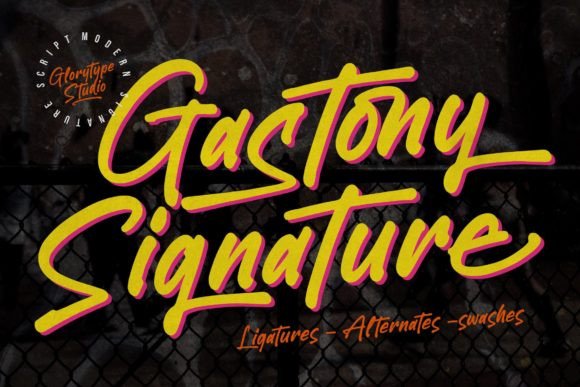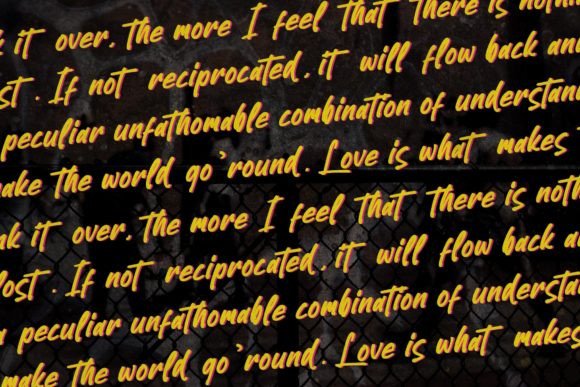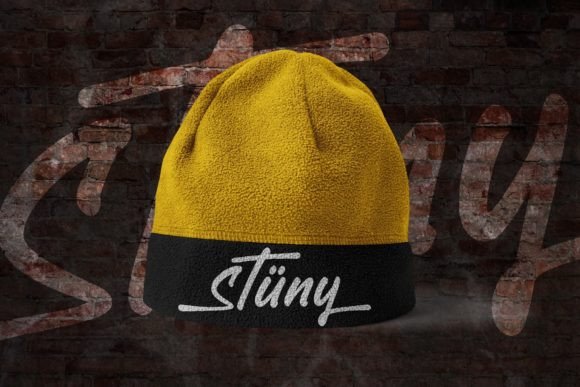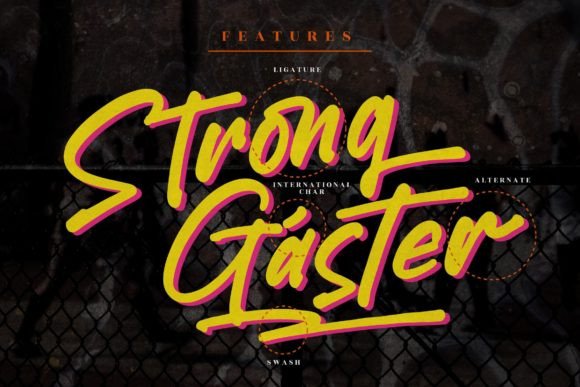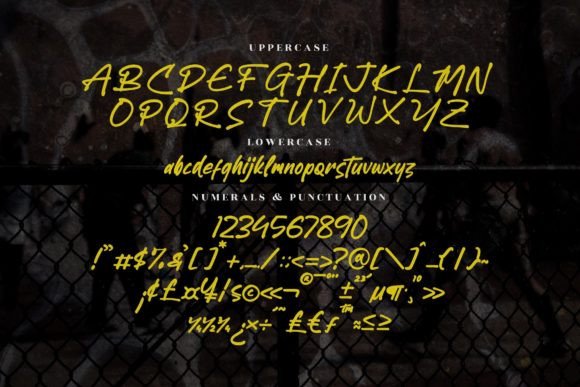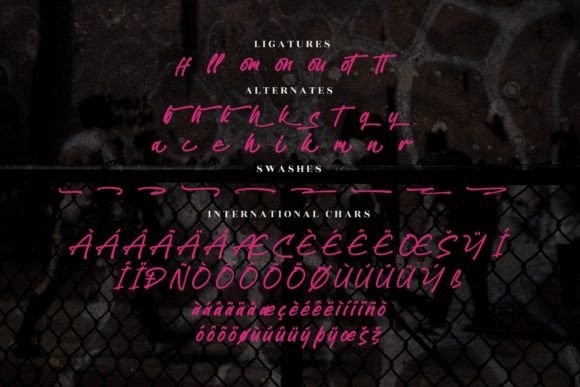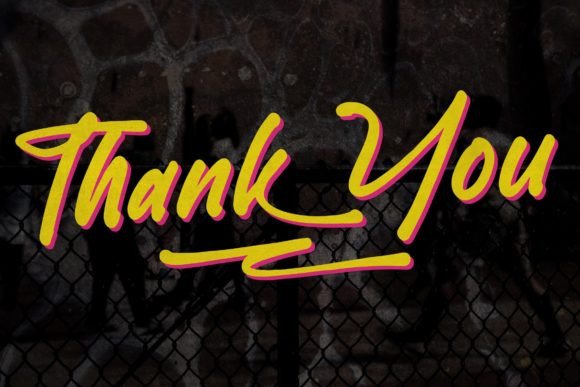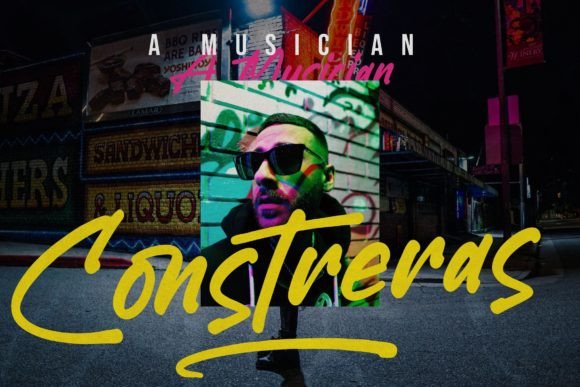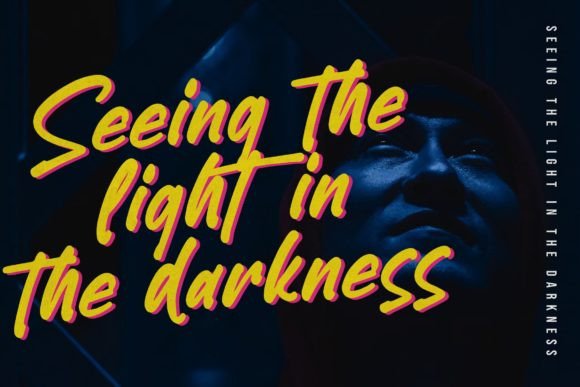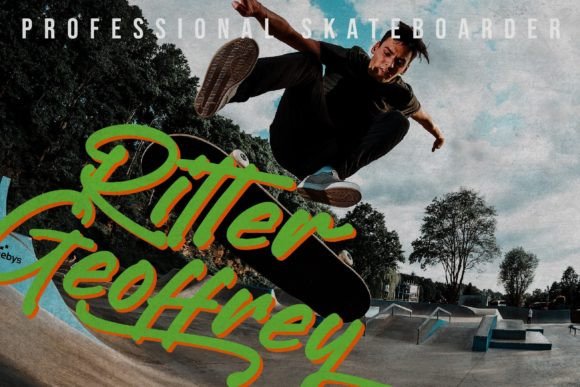
Gastony Signature Font
About Gastony Signature Font
“Gastony Signature: Where Elegance Meets Perfection in Script Typography
Introducing Gastony Signature, a dazzling script font meticulously crafted to exude elegance and sophistication. This font is not just a typeface; it’s a masterpiece, intricately detailed and beautifully designed. With its impeccable craftsmanship, Gastony Signature adds a touch of glamour to your creative endeavors, making it a wonderful asset to your font library. Whatever the topic, this font has the potential to enhance any creation, elevating it to the realm of artistic excellence.
The allure of Gastony Signature lies in its dazzling beauty and precision, where each stroke is neatly crafted to perfection. Its flowing lines and intricate details create a visual poetry that captures the essence of elegance. Imagine your branding materials adorned with Gastony Signature’s exquisite script, instantly elevating your brand with a touch of glamour and sophistication. Picture your designs featuring its highly detailed letterforms, transforming ordinary creations into extraordinary works of art. With Gastony Signature, your projects come to life with a sense of refinement, making them visually captivating and emotionally resonant.
One of Gastony Signature’s standout features is its ability to enhance any creation effortlessly. Its timeless elegance and meticulous detailing make it a versatile choice for various applications, from logos and branding to wedding invitations, advertisements, and much more. Whether you’re designing promotional materials, crafting event invitations, or working on any project that demands a touch of luxury, Gastony Signature becomes the key to unlocking the full potential of your creative vision.
Moreover, Gastony Signature is more than just a font; it’s a symbol of elegance and perfection. Its dazzling script resonates with individuals who appreciate the beauty of meticulously crafted typography, making it a favorite among designers and enthusiasts seeking a font that exudes grace and sophistication. Its presence adds a layer of depth and artistic flair to your designs, making them visually captivating and unforgettable.
In a world where attention to detail matters, Gastony Signature helps you make a statement. It speaks the language of elegance and perfection, resonating with those who appreciate the beauty of meticulously crafted artistry. Whether you’re designing for branding, special events, or any creative endeavor, Gastony Signature becomes your trusted companion, guiding you toward design excellence.
So, why settle for ordinary when you can embrace the extraordinary with Gastony Signature? Let this dazzling script font be the muse for your creative expressions, and watch as your projects come to life with elegance, glamour, and timeless beauty. Let your creativity flow, and let Gastony Signature be the brushstroke that paints your ideas into visually captivating masterpieces, leaving a lasting impression on the hearts of your audience.”